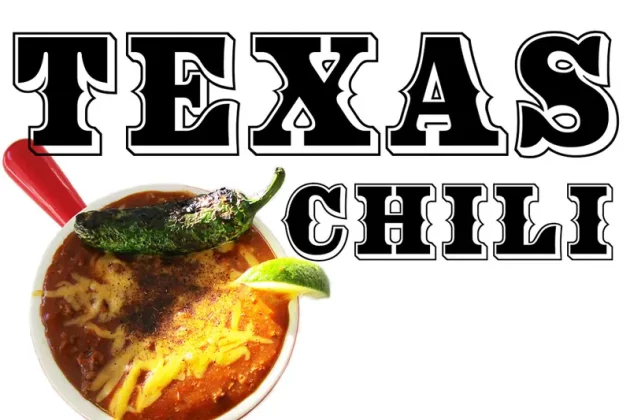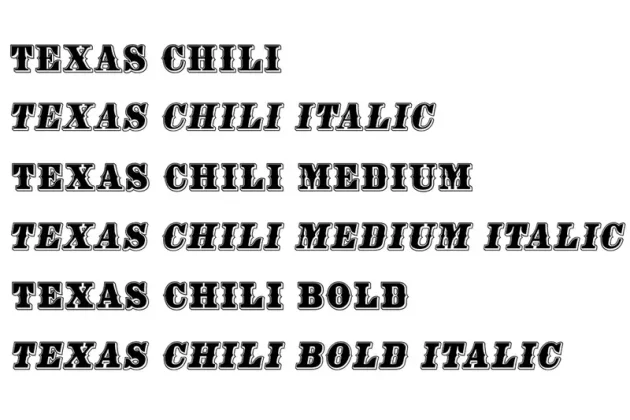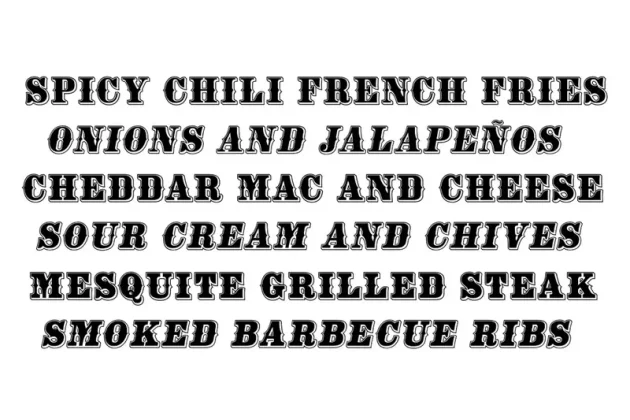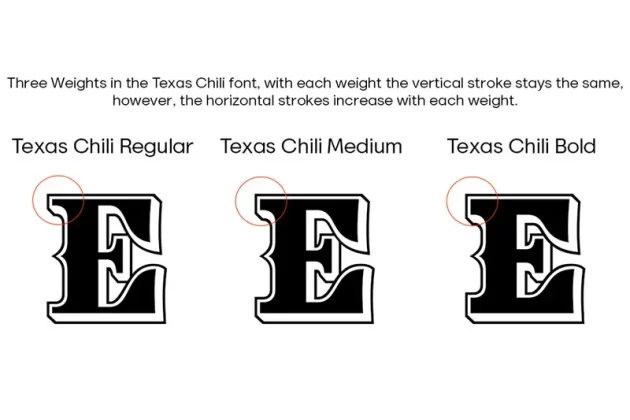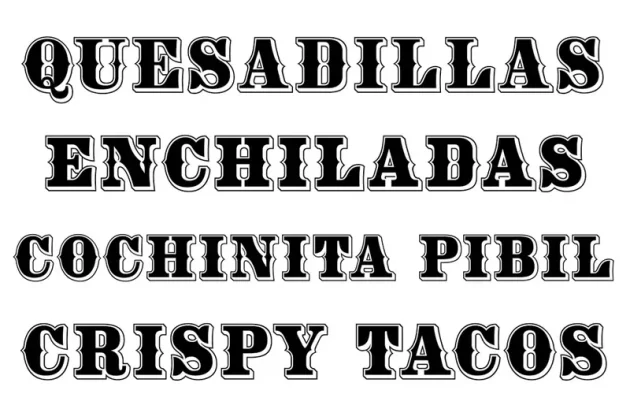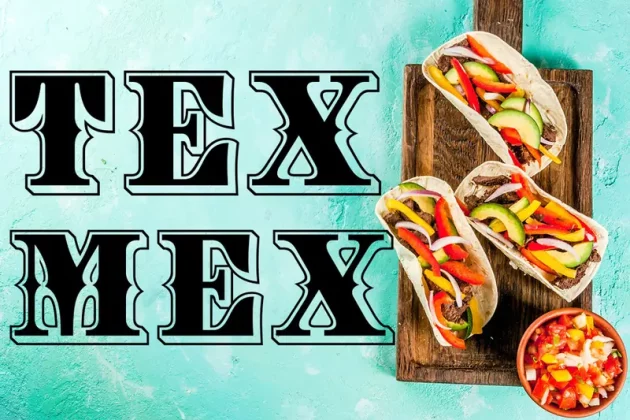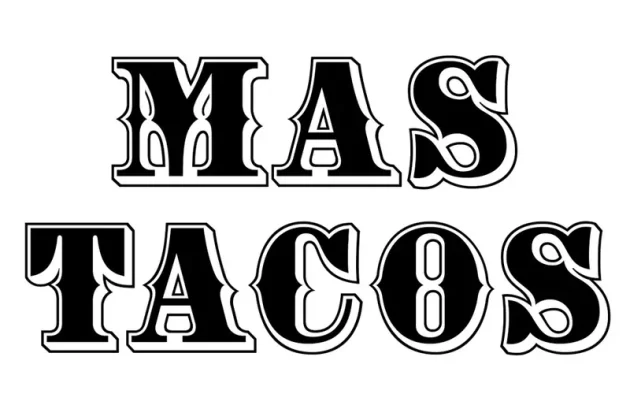
About Texas Chili Font Family Complete Font
Texas Chili is a modified version of our Philadelphian font family.
With Texas Chili we’ve squared the curved inside brackets from the Philadelphian font which helps open up the inside of some letters for a sharper appearance.
All FontMesa fonts include complete character sets with accented letters for European countries.
The Texas Chili font family also includes a Unicase i that’s balanced to the weight of the uppercase.